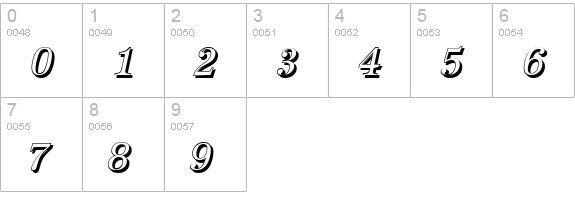
AntiquaSh-Italic is a distinctive, italic variant in the AntiquaSh typeface family \xE2\x80\x94 well suited to design and typography projects.
AntiquaSh-Italic is a timeless and elegant font that exudes sophistication and charm. Its graceful slanted style adds a touch of flair to any design project, making it perfect for adding a touch of class to invitations, branding materials, and more. The flowing curves and delicate serifs of AntiquaSh-Italic create a sense of refinement and beauty that is sure to captivate viewers. The best part? AntiquaSh-Italic is available for free download at FontsMarket.com, where you can easily access this exquisite font to elevate your creative projects. Whether you're looking to enhance your typography game or simply add a touch of elegance to your designs, AntiquaSh-Italic is the perfect choice. Download it now and let its timeless beauty inspire your next masterpiece.